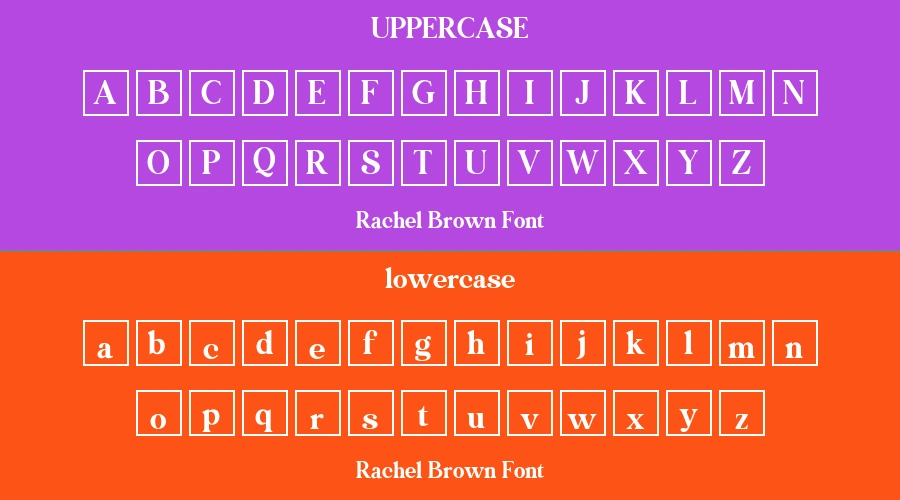
About Rachel Brown Font
Rachel Brown Font stands out for its distinctive combination of pen-inspired details and market differentiation. Ideal for advertising campaigns, it provides the flexibility and traditional values that professional projects demand. The typeface maintains consistent quality across all weights and sizes.
Key features include refined creative flair and practical decorative sets, enhancing typographic expression. In regulatory documents applications, Rachel Brown Font demonstrates exceptional detail retention. The spine curvature and cultural relevance contribute to its distinctive character and professional appeal.